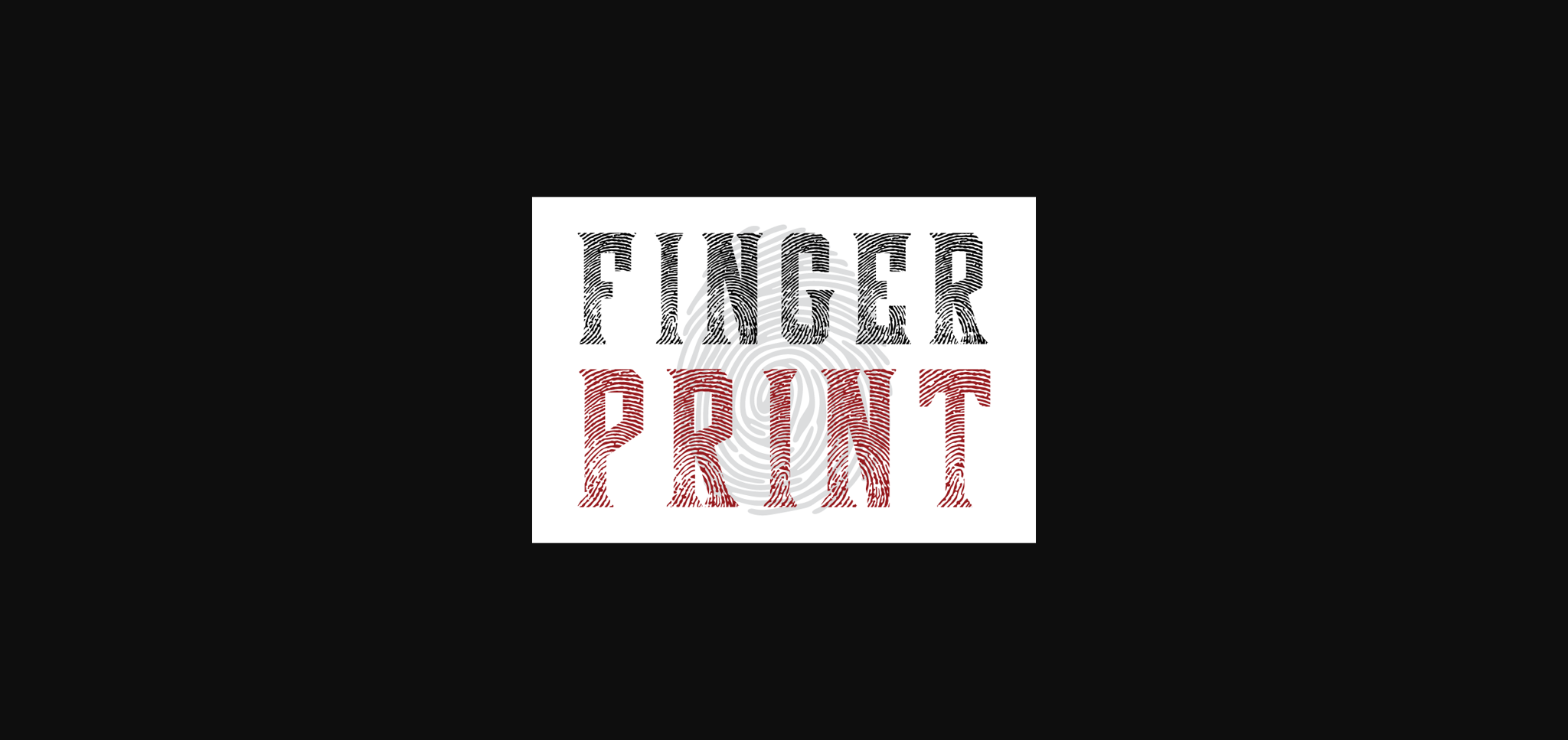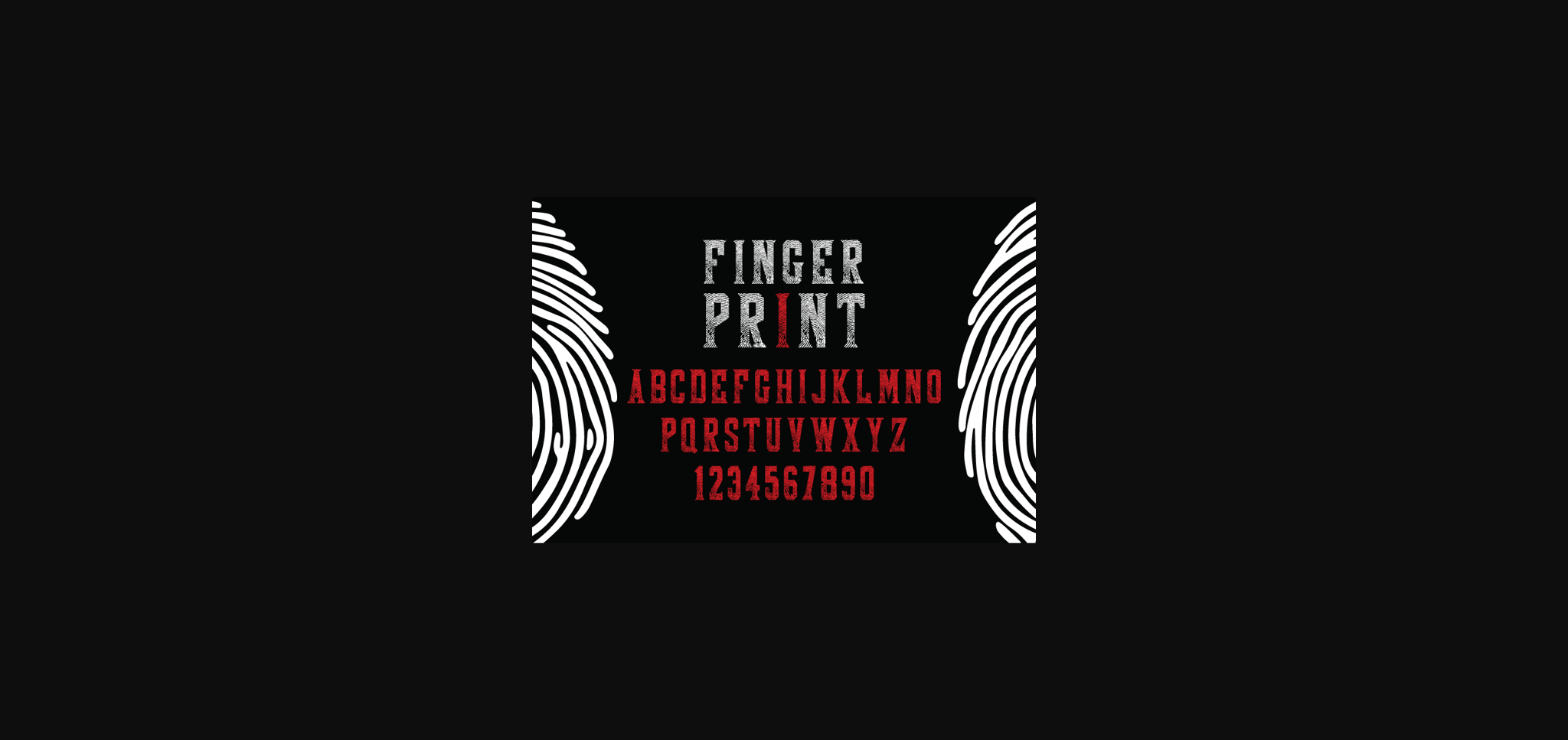
About Finger Print Font
Finger Print is a creative and Modern sans-serif font. Add it confidently to your creative projects and notice how it makes them stand out. This Finger Print font is a daring dance of contrasts and creativity. Each letter bears the marks of bold decisions, its edges sharp and confident, as if sculpted by a master craftsman’s chisel. The clean, angular incisions create a captivating interplay of light and shadow, lending dynamic energy to every character.